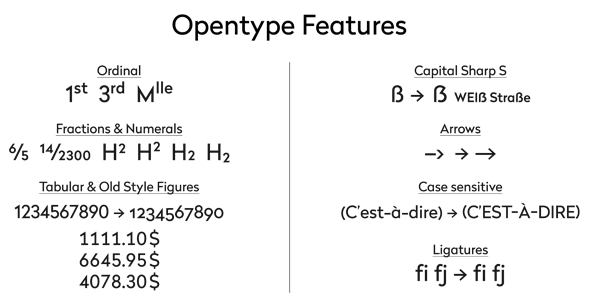
Radikal – Geometric Type Family.
Radikal is a sans serif typeface that provides simplicity and modernity. This geometric font family by Nico Inosanto (Nootype) includes seven weights, ranging from ultra thin to black version plus matching italics. Radikal includes several OpenType features such as Ligatures, Proportional Figure, Tabular Figures, Numerator, Superscript, Denominators, Scientific Inferiors, Subscript, Ordinals, and Fractions. The extended character set supports Central, Eastern, and Western European languages. You can use it as Display Font for bold headlines as well as Text Font for long and small texts.